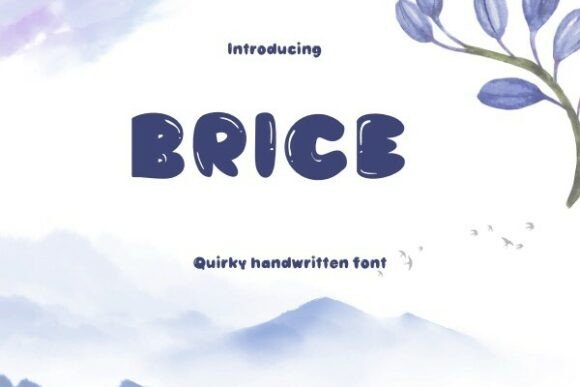
Behold the Uniqueness and Allure of Brice Font
In the realm of typography, few fonts manage to capture the essence of style and versatility as effectively as the Brice font. This intriguingly stylish handwritten font has been making waves in the design community, and for good reason. Brice brings a unique blend of elegance and playfulness to the table, making it an ideal choice for a wide range of design projects. From invigorating invitations and expressive greeting cards to wearable tees and captivating mugs, even compelling mock-ups, Brice stands out as a beacon of creativity.
The Versatility of Brice Font
One of the most significant advantages of the Brice font is its versatility. This typeface is not limited to a specific genre or medium; instead, it effortlessly adapts to various design needs. Whether you’re working on a formal invitation that requires a touch of sophistication or a playful greeting card that needs a dash of whimsy, Brice delivers. Its elegant strokes and charming letterforms make it a perfect fit for both digital and print designs.
Elegance in Handwritten Style
Brice’s handwritten style is where its true magic lies. In an era where digital fonts are often criticized for their lack of personality, Brice shines with its distinctly human touch. Each letter is crafted with care, showcasing the imperfections and nuances that make handwritten text so appealing. This font doesn’t just convey a message; it tells a story. It’s a story of warmth, of personality, and of a deep connection to the art of handwriting.
Applications of Brice Font
The applications of Brice font are as varied as they are exciting. Designers and crafters can use Brice to:
- Create Invigorating Invitations: Stand out with wedding invitations, birthday invites, or any other special occasion announcement that demands attention and elegance.
- Design Expressive Greeting Cards: From thank you cards to holiday greetings, Brice adds a personal touch that makes recipients feel special.
- Customize Wearable Tees: Give t-shirts, hoodies, or any apparel a unique flair that reflects the wearer’s personality.
- Craft Captivating Mugs: Turn ordinary coffee mugs into personalized treasures that are as functional as they are beautiful.
- Develop Compelling Mock-ups: Use Brice in your design projects to add a realistic, hand-crafted feel that resonates with audiences.
The Charm and Distinctive Style of Brice
What sets Brice apart from other fonts is its charm and distinctive style. In a world where design trends come and go, Brice remains timeless. Its ability to evoke emotion and create a connection with the viewer is unparalleled. Whether you’re a professional designer or a hobbyist crafter, Brice offers a way to infuse your work with a bit of magic.
Tips for Using Brice Font Effectively
To make the most of Brice font, consider the following tips:
- Pair it Wisely: Combine Brice with complementary fonts to create visual interest and hierarchy in your designs.
- Play with Colors: Don’t be afraid to experiment with different colors to find the perfect match for your Brice text.
- Emphasize with Size: Use size variations to emphasize certain words or phrases, creating a dynamic and engaging layout.
In conclusion, the Brice font is a game-changer for designers and crafters looking to add a sprinkle of creativity to their work. Its unique blend of style, versatility, and charm makes it an invaluable tool in any creative arsenal. Whether you’re working on a professional project or a personal craft, Brice invites you to explore new possibilities and push the boundaries of your imagination. So, behold the uniqueness and allure of Brice, and let this stylish handwritten font transform your designs into works of art.